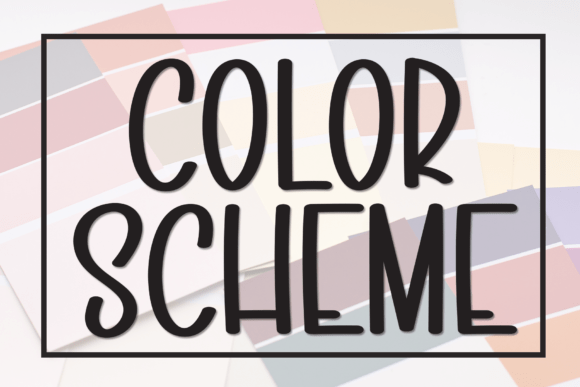
Elevate Your Designs with Color Scheme Font: A Modern, Monoline Marvel
In the world of typography, few fonts manage to strike a balance between modernity, expressiveness, and legibility. Color Scheme font, however, achieves this feat with its bold, monoline aesthetic that is as clean as it is captivating. This article will delve into the characteristics, benefits, and uses of the Color Scheme font, making it an essential read for designers, crafters, and anyone looking to elevate their visual projects.
Design Characteristics of Color Scheme Font
Color Scheme font presents itself with tall, condensed letterforms that create a unique visual rhythm. This distinctive feature allows for a harmonious flow of text, making it perfect for projects where space is a consideration, yet impact is paramount. The uniform stroke weight of the font lends it a modern, confident tone that can instantly elevate the aesthetic of any design.
One of the subtle yet impactful design choices of the Color Scheme font is the slightly rounded terminals. This design element softens the overall impact of the font, making it more approachable and less harsh than fonts with sharp, angular terminals. The result is a friendly, inviting feel that doesn’t compromise on modernity or professionalism.
Legibility and Versatility
Despite its stylized appearance, the Color Scheme font maintains excellent vertical balance. This balance, combined with its smooth curves and flat baselines, contributes to its high legibility even at larger sizes. This makes it an incredibly versatile font suitable for a wide range of applications, including headers, signage, packaging, and DIY-themed visuals.
Whether you’re working on a branding project, crafting a compelling poster, or designing packaging that stands out on shelves, the Color Scheme font offers both style and substance. Its unique blend of modernity and approachability ensures that your message is conveyed with clarity and impact.
Bridging Casual Style with Clear Communication
What sets the Color Scheme font apart is its ability to bridge casual style with clear communication. While it has a playful edge, its form is still highly structured and intentional. This balance ensures that your designs are not only visually appealing but also effectively communicative. In a world where capturing your audience’s attention is half the battle, having a font that can convey your message with clarity and style is invaluable.
Uses of Color Scheme Font
The versatility of the Color Scheme font means it can be used in a multitude of design projects. Here are some of the most impactful uses:
- Headers and Titles: Its bold and modern aesthetic makes it perfect for headers and titles, adding a touch of sophistication and professionalism to any piece of writing.
- Signage: For both indoor and outdoor signage, the Color Scheme font offers clear legibility and visual appeal, making it an excellent choice.
- Packaging: Stand out on the shelves with packaging that uses the Color Scheme font. Its unique style and high legibility make it ideal for product labels and packaging.
- DIY-Themed Visuals: For crafters and DIY enthusiasts, this font offers a modern yet approachable feel that can enhance the visual appeal of any project.
The Color Scheme font is a powerful tool in the world of design, offering a unique blend of modernity, expressiveness, and legibility. Its design characteristics, versatility, and ease of use make it an excellent choice for designers and crafters looking to elevate their visual projects. Whether you’re aiming for a professional look or a more casual, playful vibe, the Color Scheme font is sure to deliver. With its encoded PUA character set, accessing and using this font has never been easier. So, why settle for ordinary when you can make a statement with the Color Scheme font?